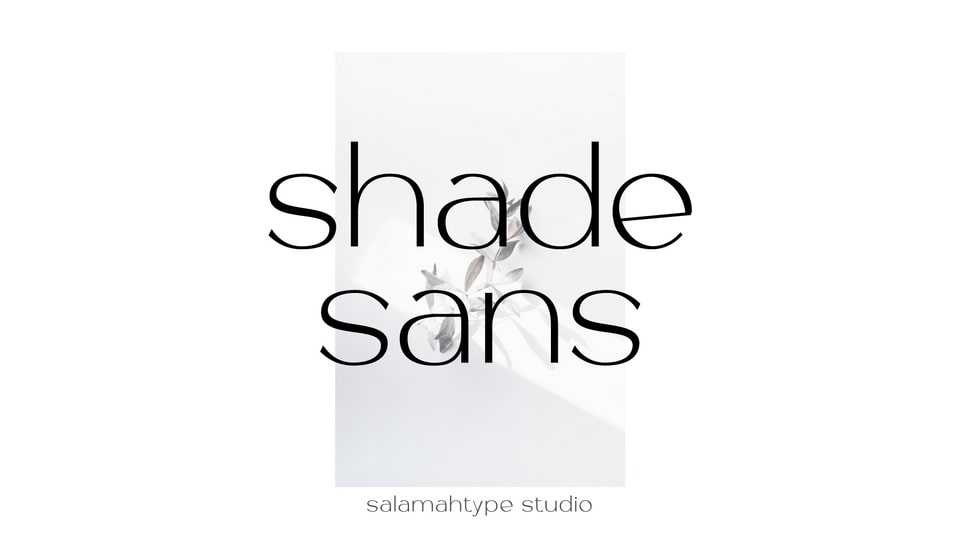
Sownload Shade Sans font, a clean sans serif typeface. This font perfect for branding projects, logos, social media posts, advertisements, product packaging and so on.